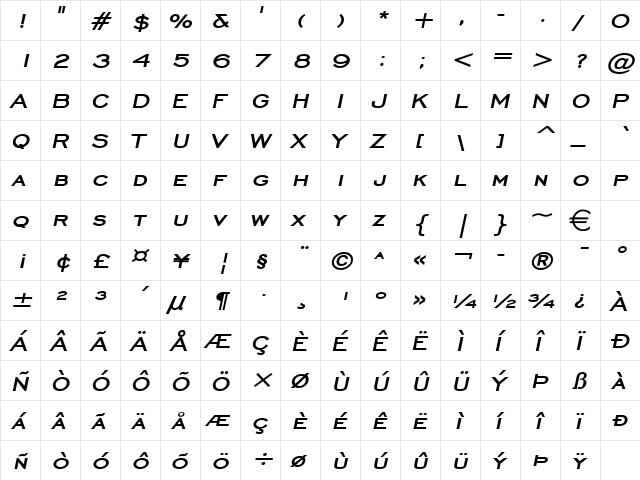
ChiselWide BoldItalic Font Preview
Design Context for ChiselWide Typeface
ChiselWide offers clean, dependable letterforms without strong stylistic allegiance, making it a practical choice for designers who need flexibility. The dynamic lean of this cut emphasises speed and emphasis in any layout. Its bold stroke weight gives it real presence on the page.
Pro Tip: Try ChiselWide for annotation and caption copy alongside an upright companion — the contrast in angle creates a dynamic but ordered typographic system.